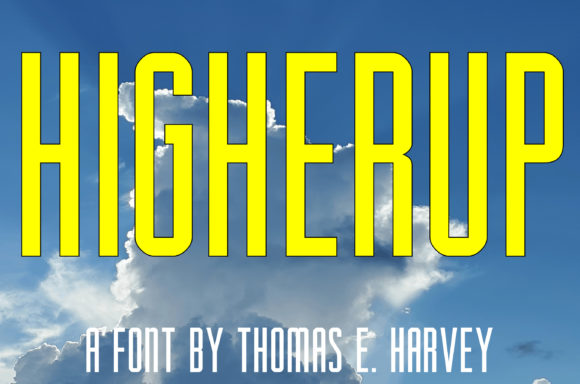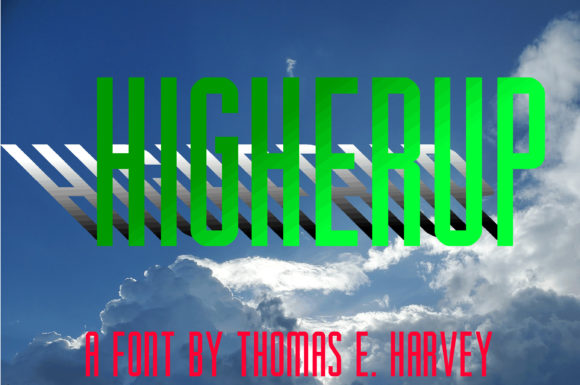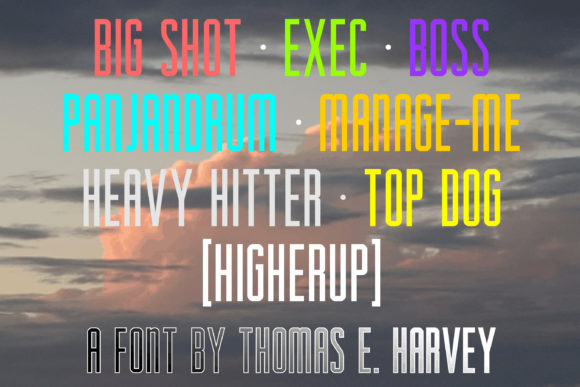
Higherup Font: Modern Display Font for Eye-Catching Headlines!
About the Higherup Font
From logos to headlines, the Higherup Font is the perfect choice for making a lasting impression. Higherup is a cool, tall and modern looking display font. This narrow, semi-bold font takes words to new heights of solid, simple and sophisticated style.
Higherup excels as a display font for headlines, short impactful titles, and logos. Its strong verticality makes it ideal for branding applications requiring a sense of height and modernity, particularly in minimalist designs or those emphasizing a clean, sophisticated aesthetic. Avoid using it for body text or long paragraphs; its narrow width and semi-bold weight would strain readability.
Its core personality is confident and modern, with a touch of understated elegance. It suits brands projecting professionalism, ambition, and a forward-thinking approach. Consider pairing Higherup with a clean sans-serif like Montserrat for body copy, or a slightly warmer, geometric sans-serif such as Lato for a softer contrast.
For a more striking effect, a thin serif like Garamond or a delicate script font can complement its boldness, providing visual counterpoint without overwhelming the design.
Higherup Font Usage Examples
Higherup Font Example